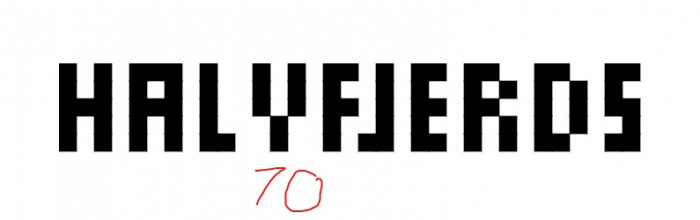
how to write 0 - 9?
Well, yes, I noticed that. Right now, you can write it as 07, which will give "sieben (undnullzig)". But I think I can fix it.
FÜNF looks awesome to look at and exotic to my eyes.
Why not Danish?
I'm working on the Danish version ;) I just wanted to make German, because more people speak it, and it Works about the same. My only problem right now is "halvfjerds" (seventy) which has 10 characters - one more than my maximum of 9. But I'll see what I can do with kerning ;)
It looks like it would be a great way to teach people the German number set!
@ETH: Thats what i downloaded it for. I will Show it to my students next semester. As an example for an interesting sign system
@CMunk: About that "halvfjerds" (seventy) problem, just squeeze the E, F, J and L.
(And the R and S too.)
(Actually, mabye not the R.)
Maybe something like this for the Danish 70?
(without the red 70)
(make sure to kern the L and V)
Oh wait, you've done it already. Silly me!